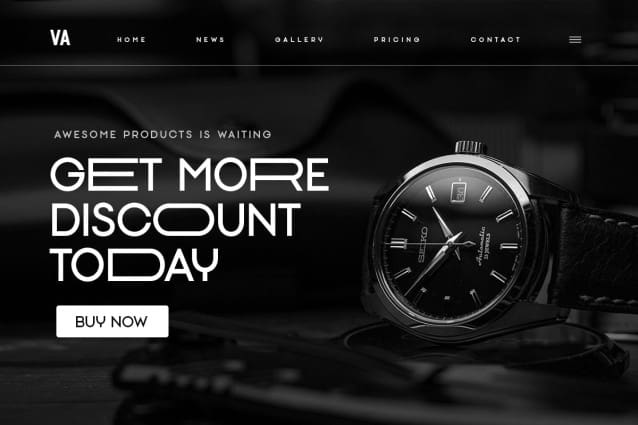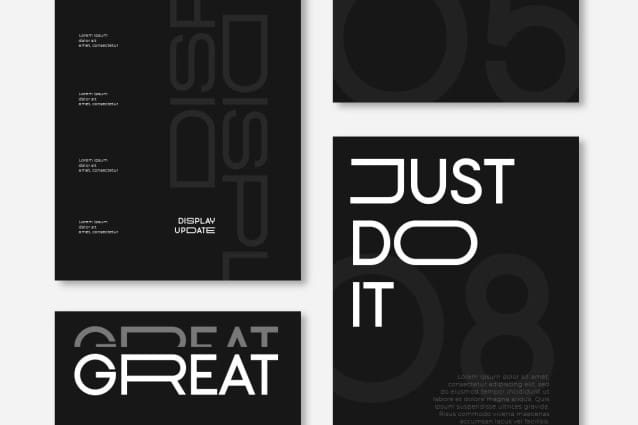
Broad Font is a modern wide or extended sans serif font, perfect for display needs. A Display Sans Serif font that we created specifically to meet the unique needs of your brand, with expanded characters that will add a unique touch to your typographic style. It’s so nice to call on a designer or product owner who needs solutions to make their design more unique and standout.